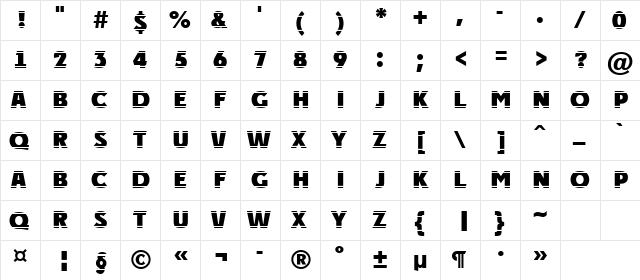
a_PlakatTitulHlStr ExtraBold
Design Context for a_PlakatTitulHlStr Typeface
a_PlakatTitulHlStr is a composed and adaptable typeface that performs quietly and consistently across a wide range of design contexts. The heavy weight commands attention and anchors typographic hierarchies.